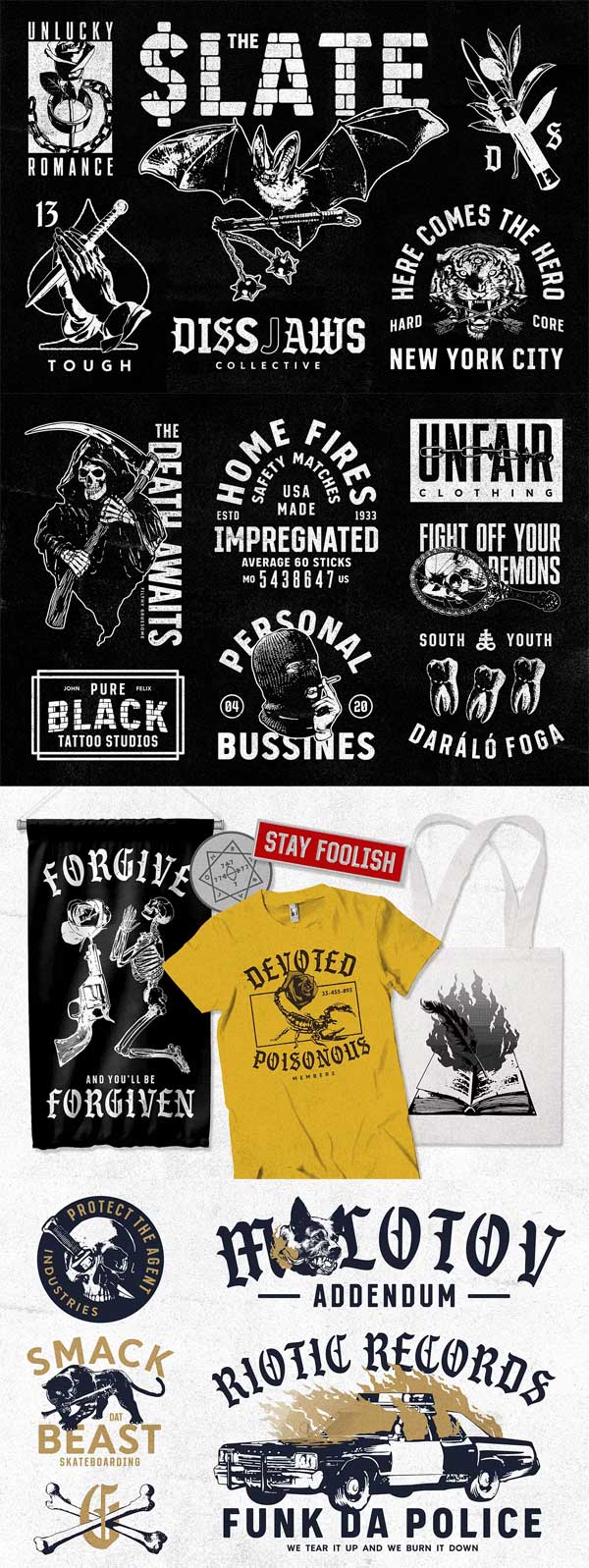
S&S GreyHood Font Bundles
Available in 13 fonts. Each typeface has a Textured Version, plus an outlined and brick effect. Each typeface allows them to pair very well with each other. and also the extras of highly detailed vectors with the ‘low fidelity’ vintage style. perfect for everyone who’d like to add a mystical design. ideal for gig posters, band logotypes, apparel designs, and many more. You Can Also Download Massive Collection Fonts Bundle.
• S&S GreyHood No.1
• S&S GreyHood No.2
• S&S GreyHood No.3
• S&S GreyHood No.4
• S&S GreyHood No.5
• S&S GreyHood No.6
• S&S GreyHood No.7
• S&S GreyHood No.8
• S&S GreyHood No.9
• S&S GreyHood No.10
• S&S GreyHood No.11
• S&S GreyHood No.12
• S&S GreyHood No.13
• Badges (Non-Editable Text) & Vector Illustration in The Posters Uppercase |
• all the designs contained in the poster using the GreyHood font family
Suggestion: This font is a terrific toolbox for display purposes